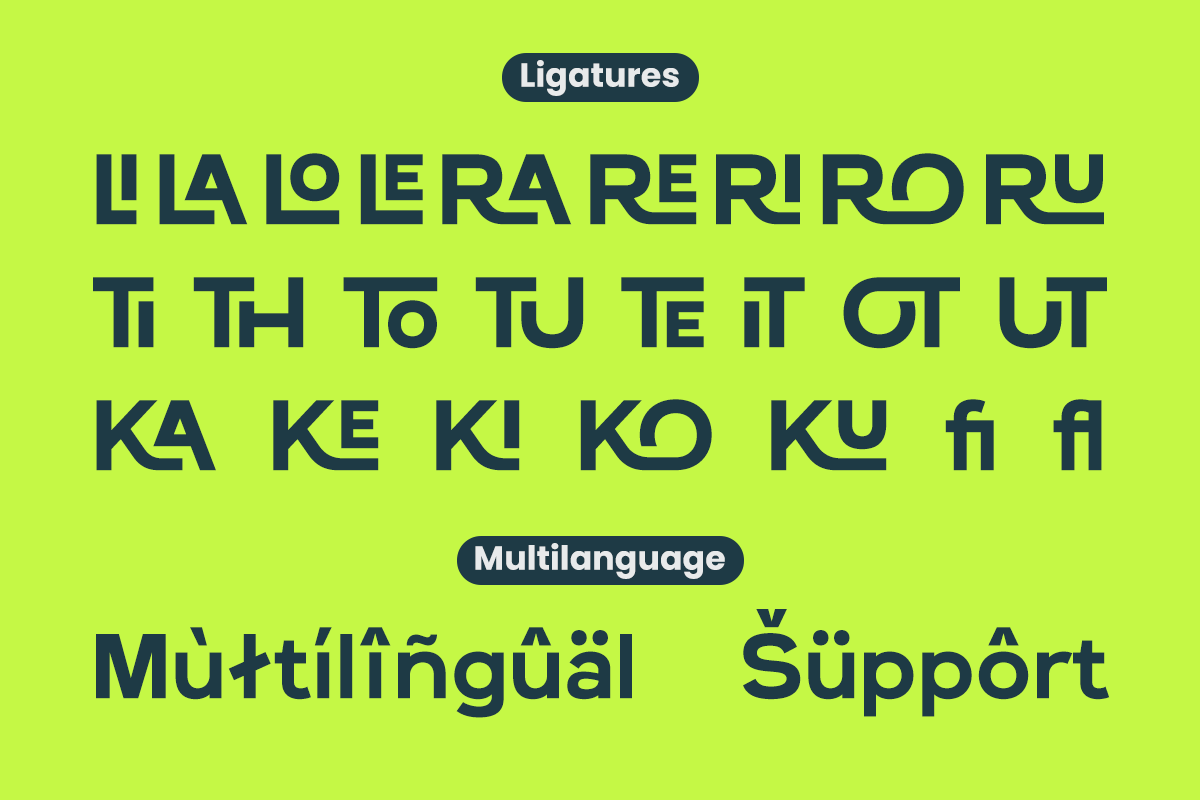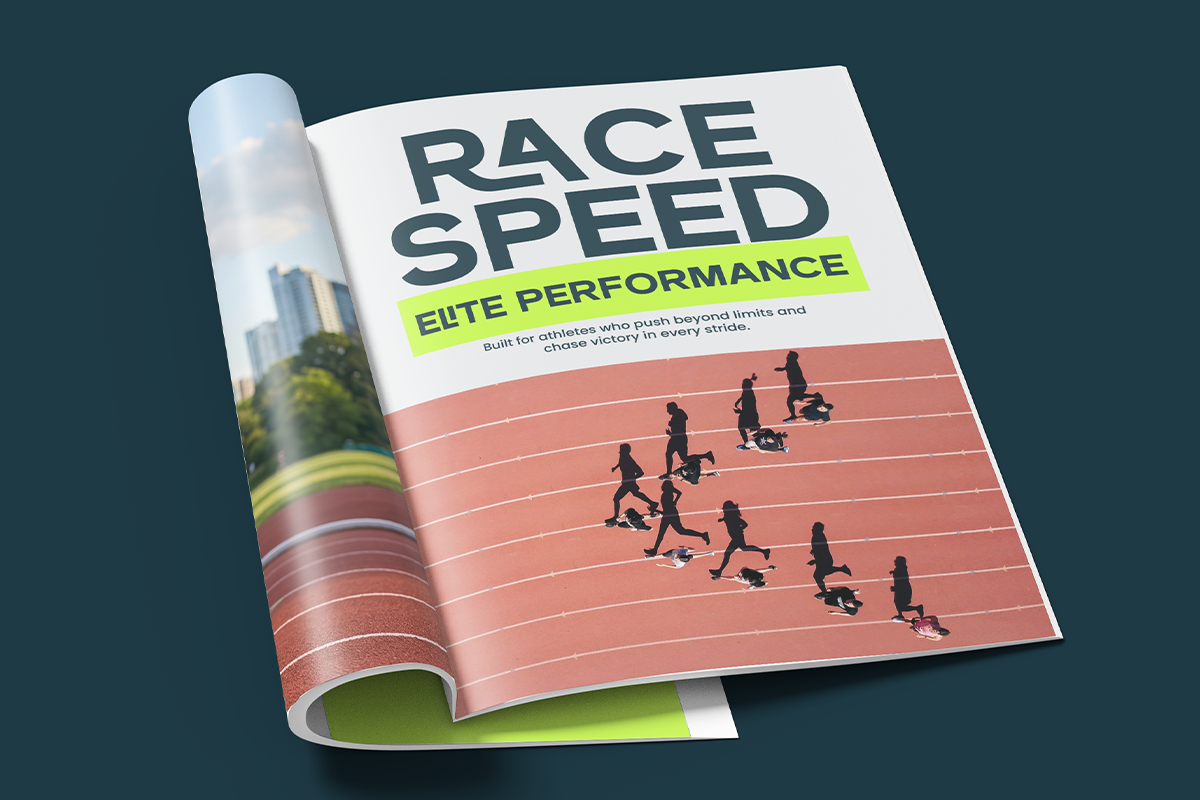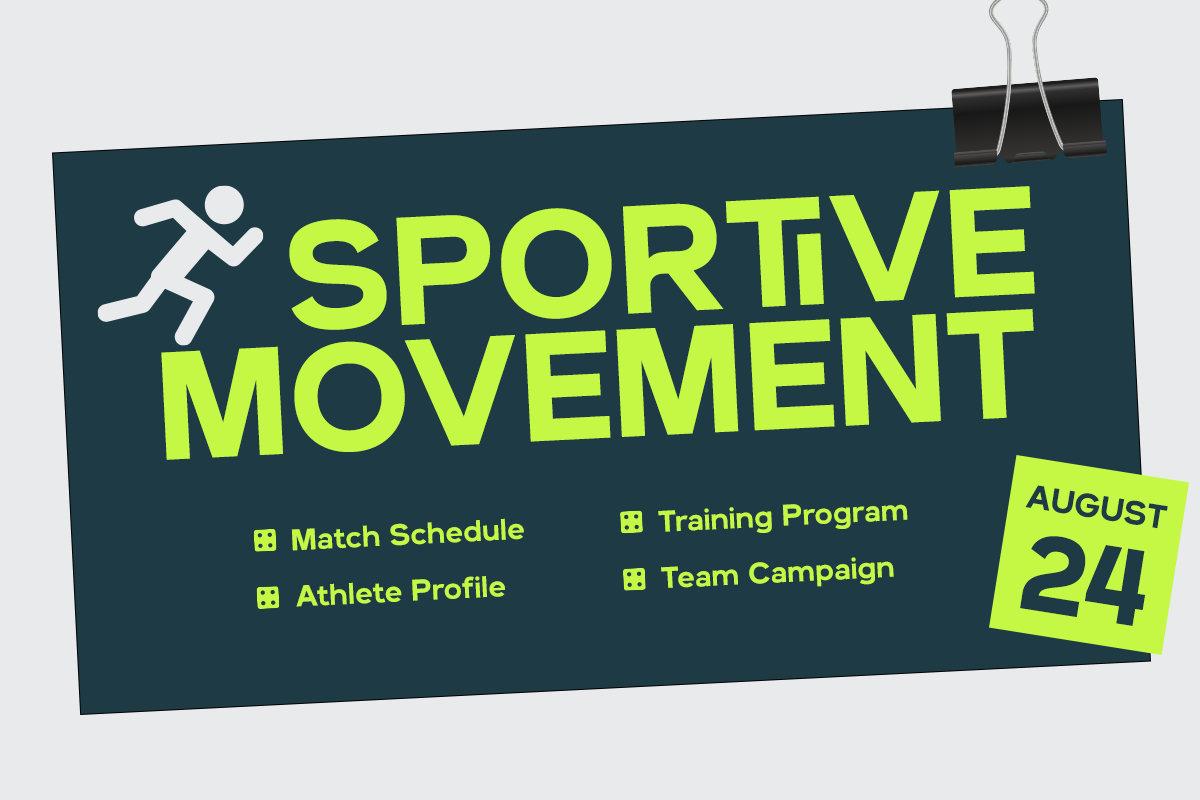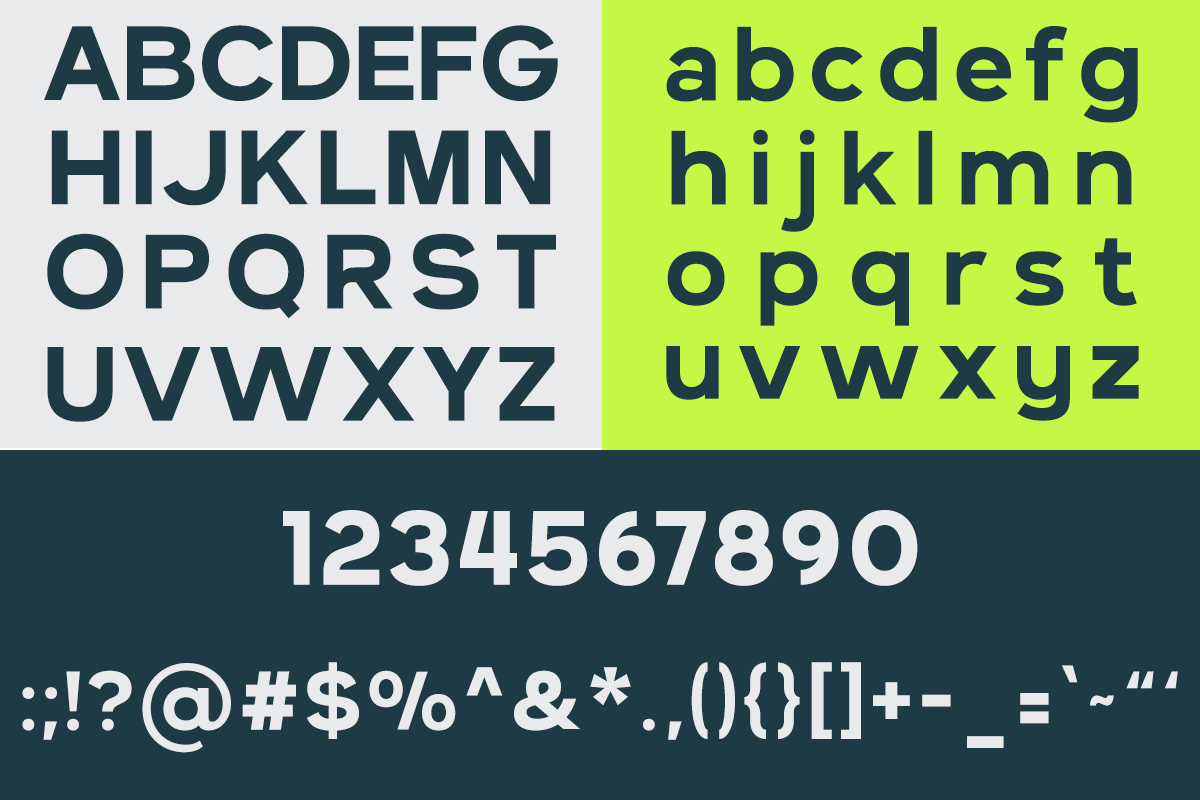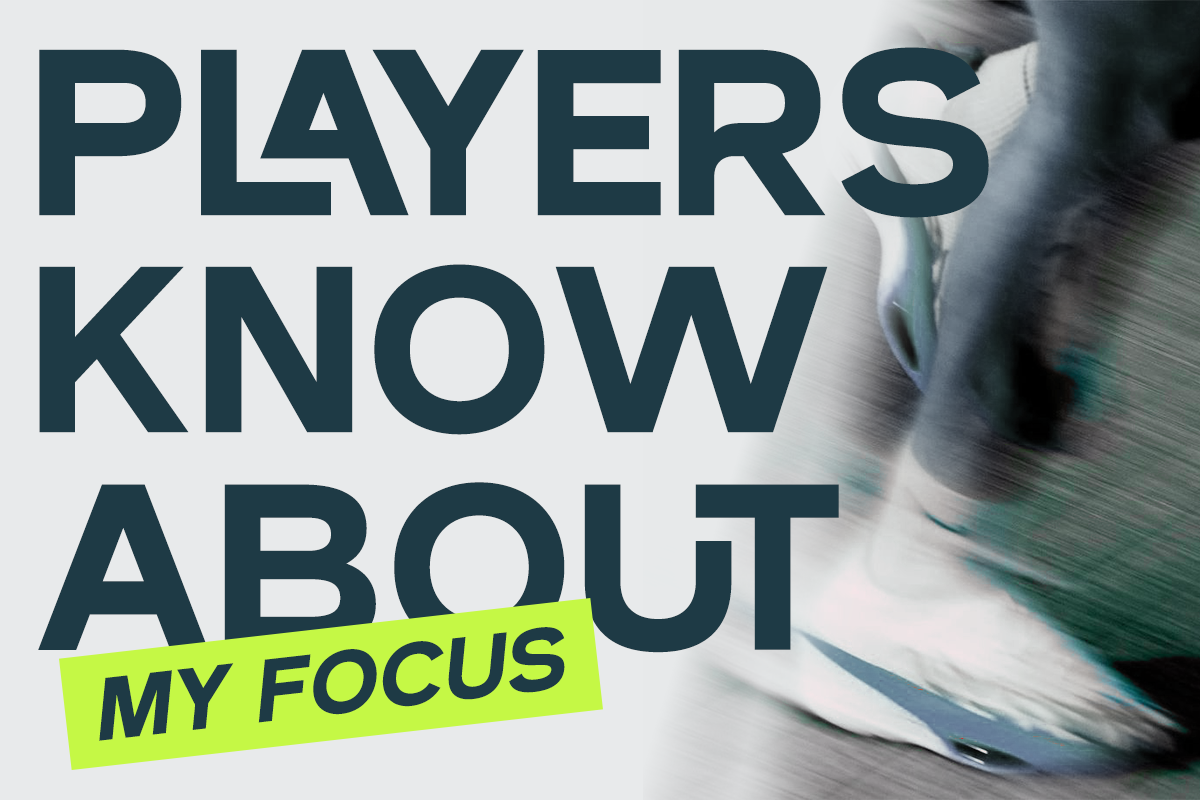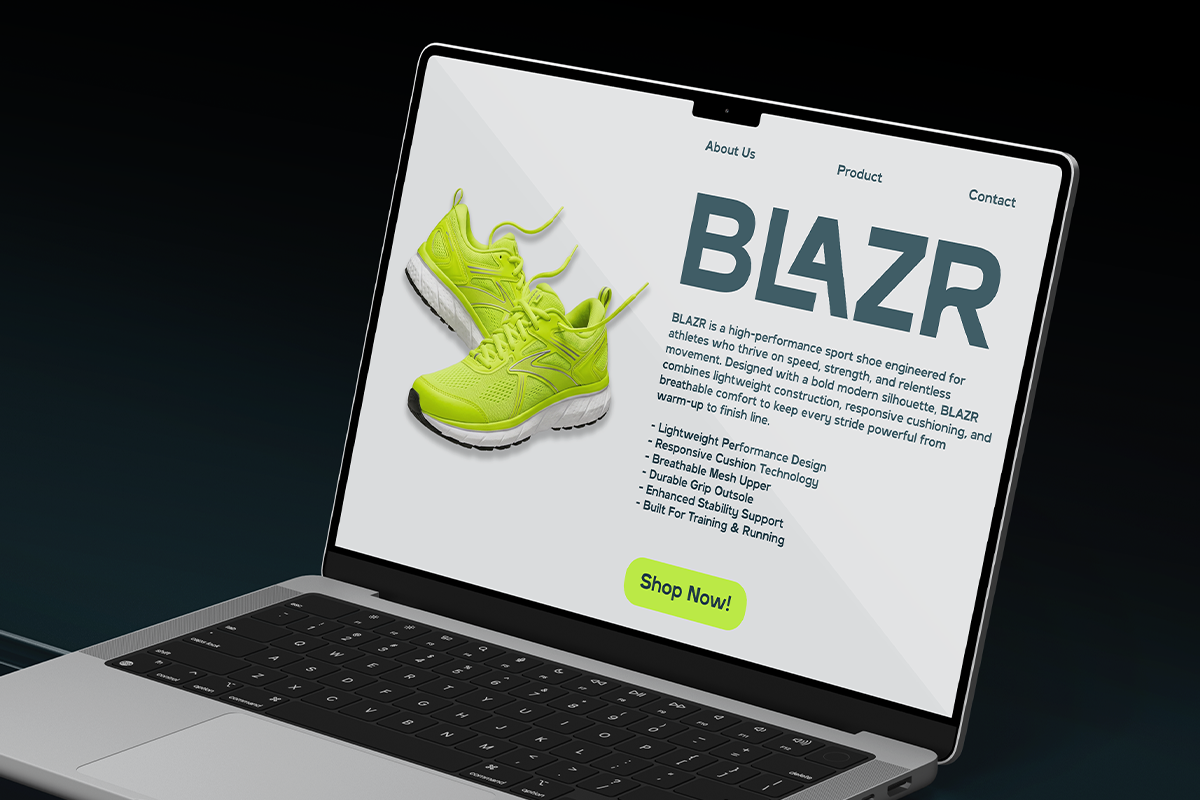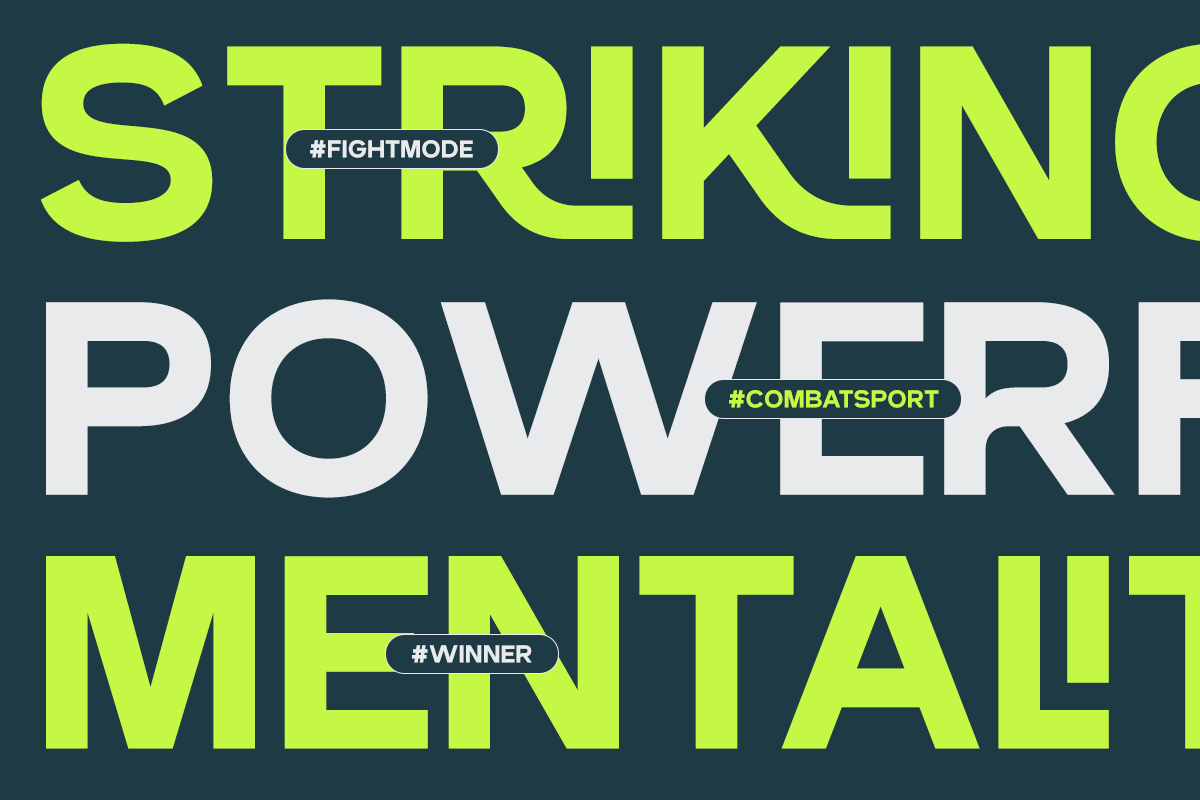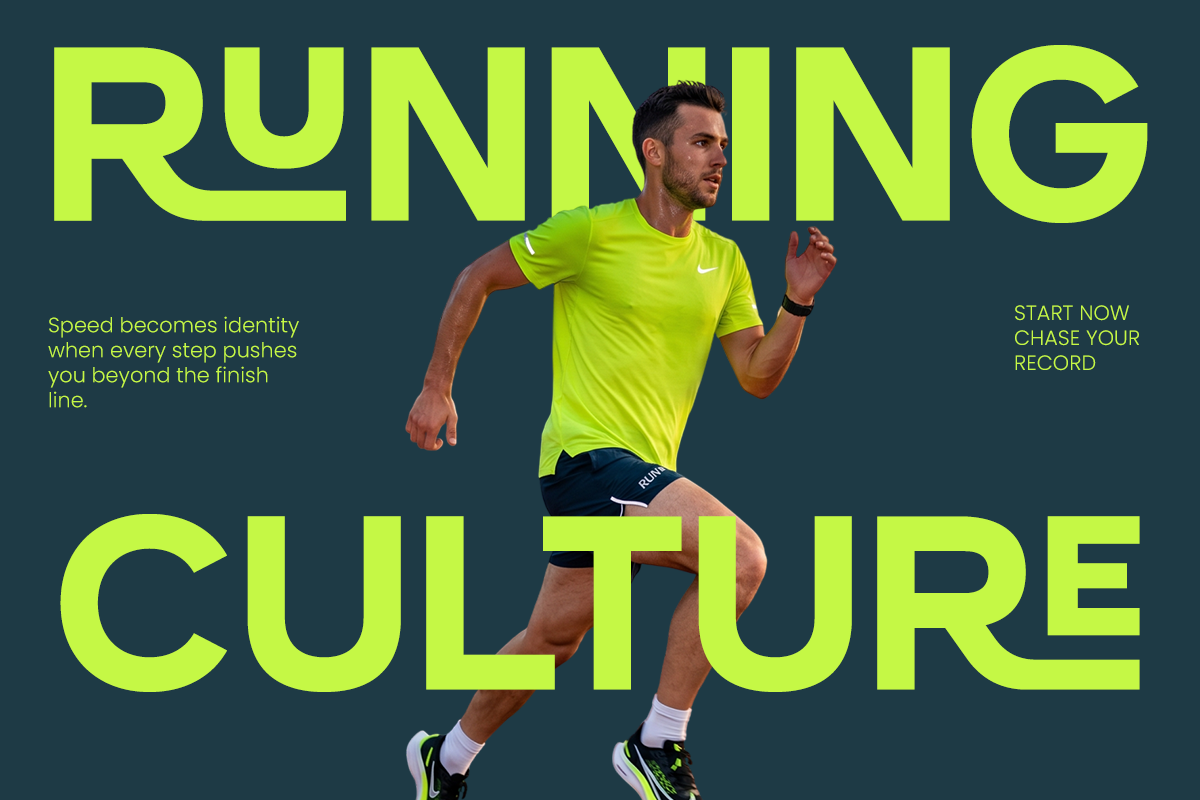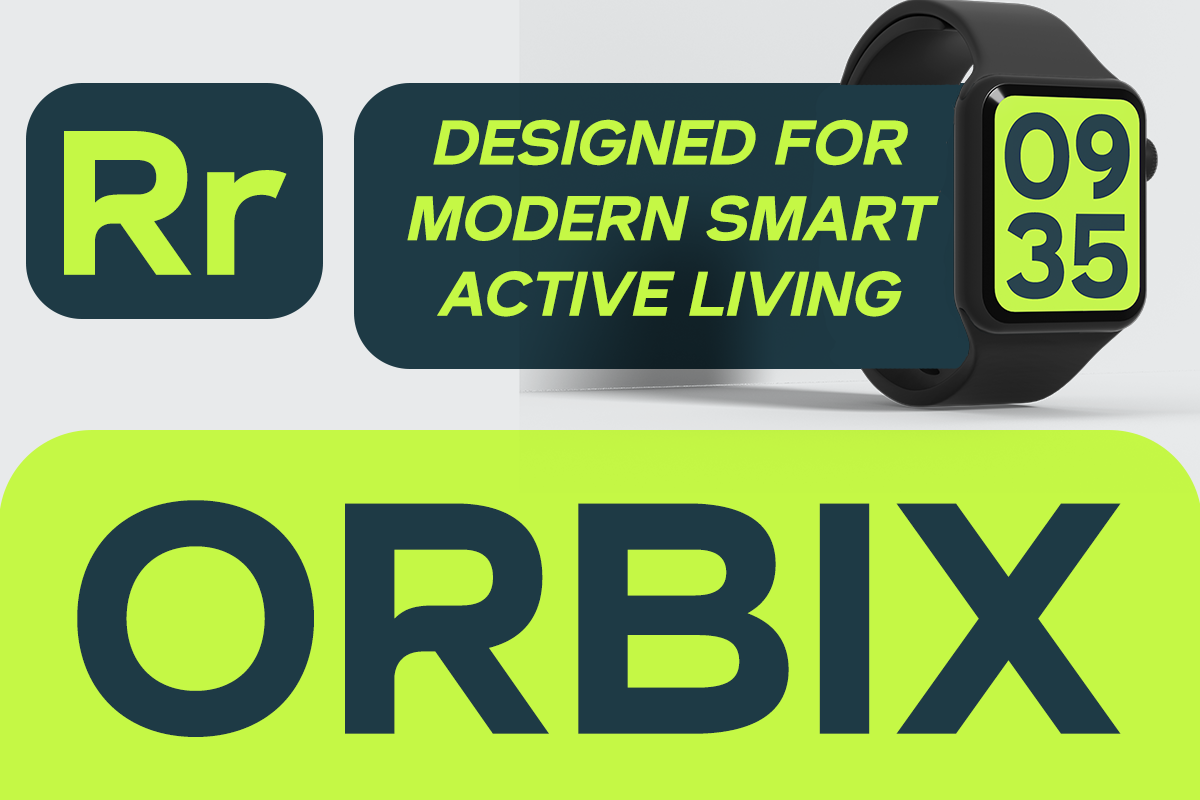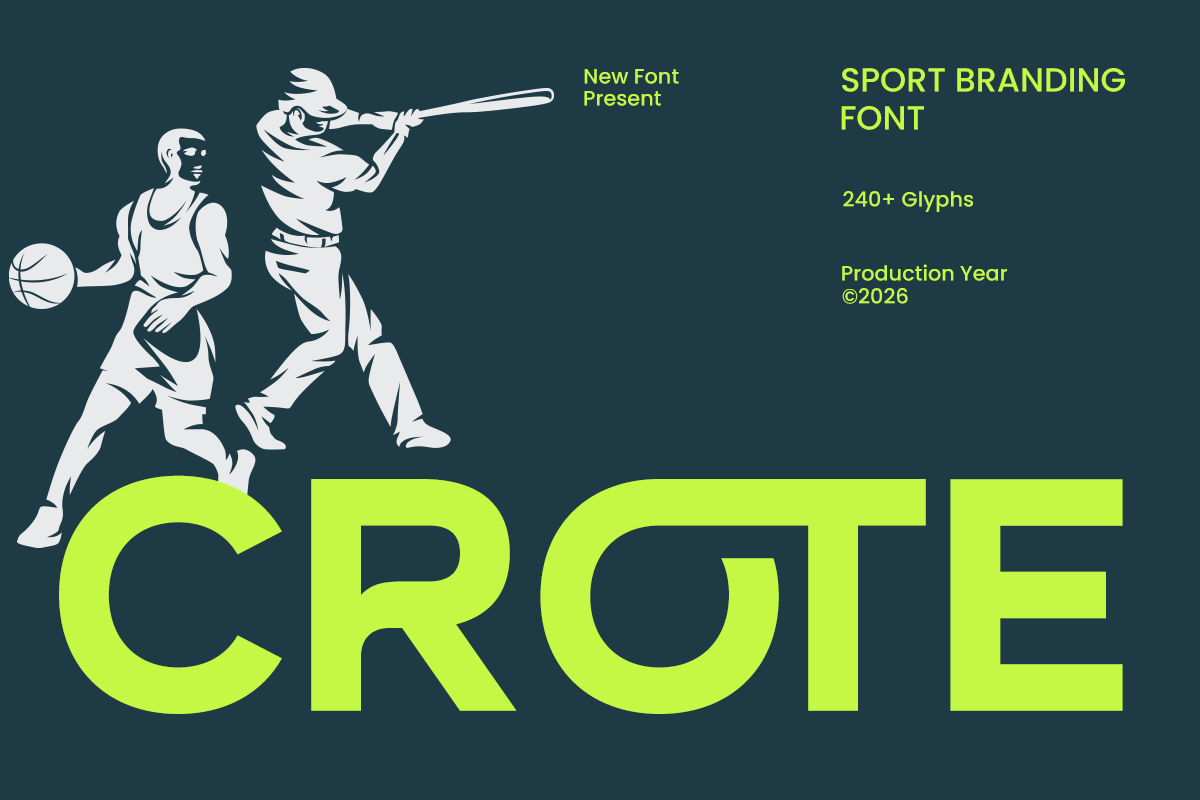
Crote - Sports Branding Font
Crote is a bold sport branding typeface engineered for high-impact visuals, athletic identities, and modern performance-driven design. Built with strong geometric construction, sharp athletic energy, and commanding letterforms, this font delivers the confidence and power needed for sports branding, esports visuals, fitness campaigns, and competitive merchandise. Its bold presence makes every headline, logo, and promotional graphic instantly dynamic and memorable.
Designed for creators who need maximum impact, Crote performs exceptionally across team branding, graphics, sports logos, gym campaigns, athletic, gaming identities, event posters, YouTube thumbnails, fitness packaging, social media promotions, and modern commercial branding. Whether you're creating a championship sports identity, bold esports branding, gym merchandise, or high-performance advertising campaigns, Crote brings unstoppable athletic energy and professional branding power to every design.
Regular and Italic Style
Stylistic Ligature
Number and Punctuation